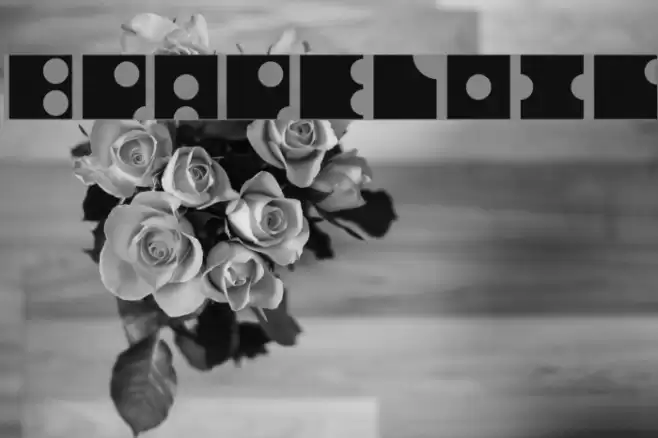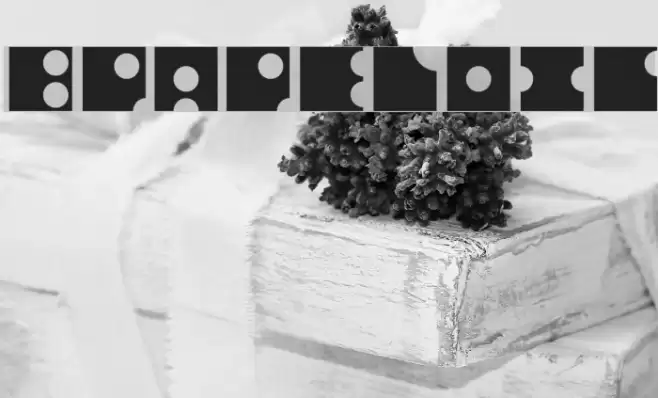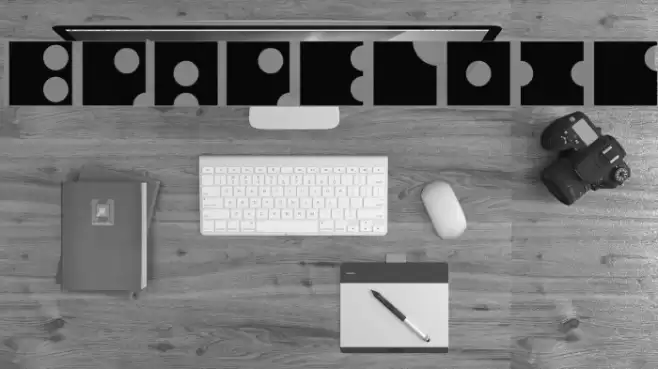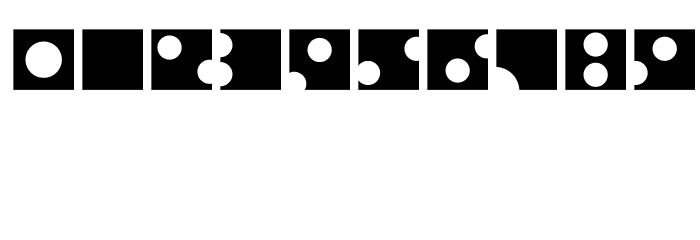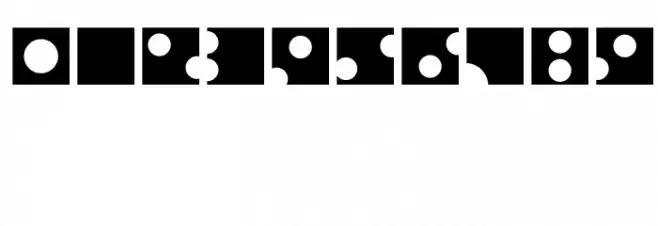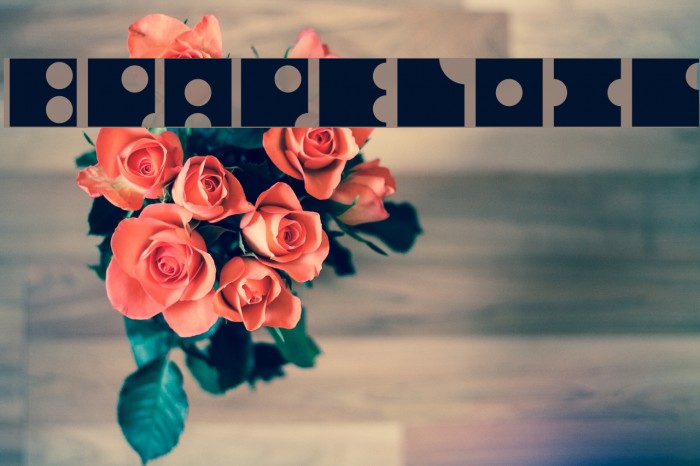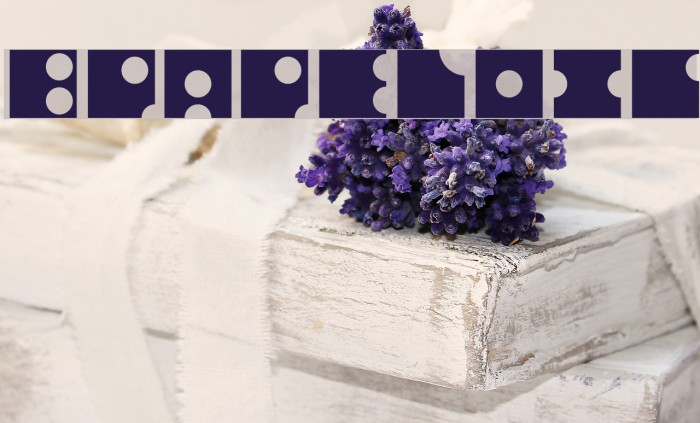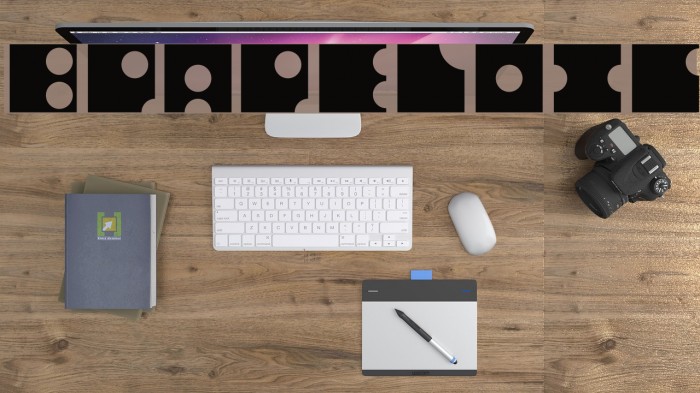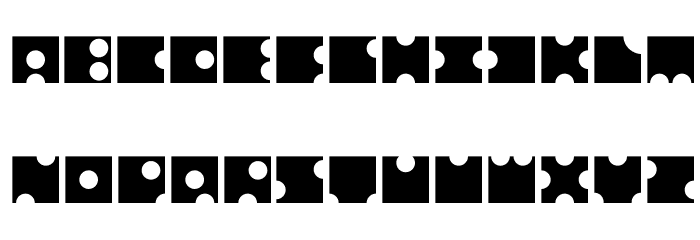
BPapeloig Font
BPapeloig Description
This font features a bold and geometric design with a unique, puzzle-like appearance. Each character is composed of solid, blocky shapes with circular cutouts, creating a playful and abstract aesthetic. The letters and numbers are uniform in width, giving a monospaced feel, while the special characters maintain the same distinctive style. The high contrast between the solid black forms and the white spaces enhances readability while maintaining a decorative quality. This font stands out with its modern and artistic flair, making it suitable for creative projects.
A bold, geometric font with puzzle-like shapes and high contrast from Uncategorized fonts.
- Proposed Projects: Ideal for modern art projects, unique branding, eye-catching posters, and creative digital designs.